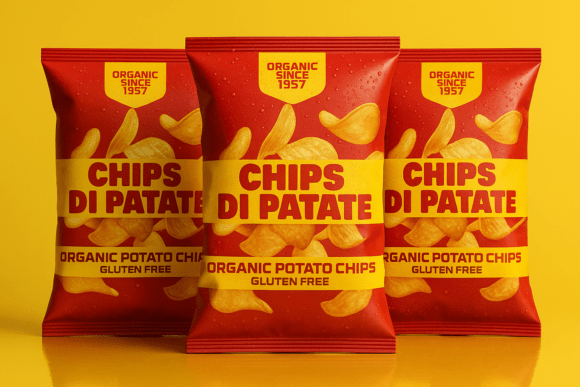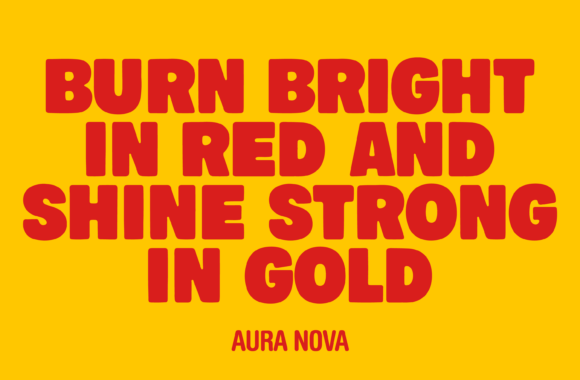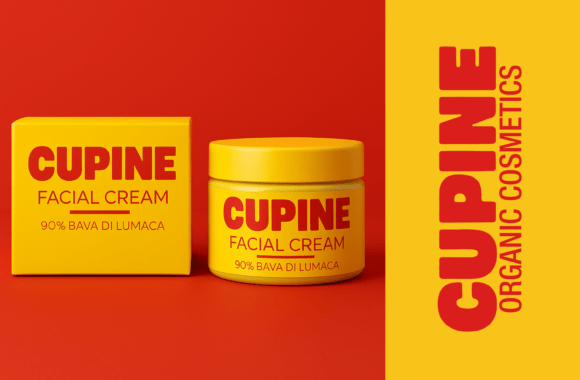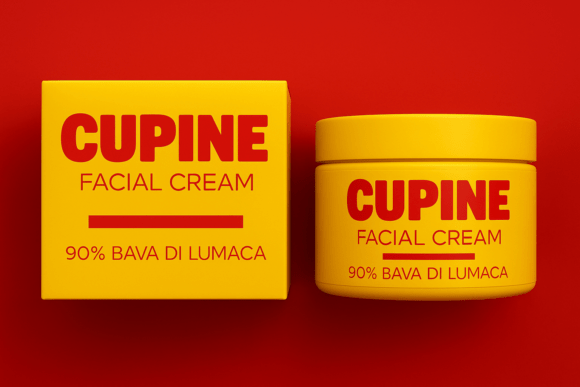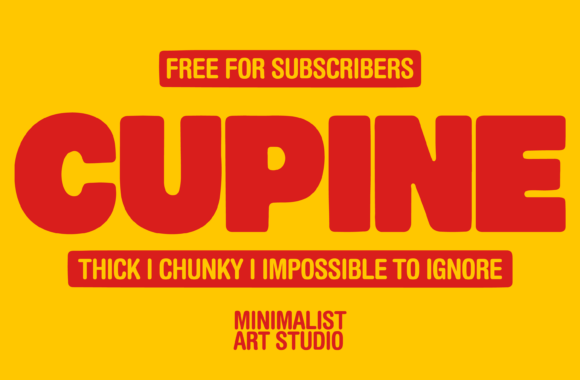
Cupine Font: The Ultimate Display Font for Bold Designs
Are you tired of using the same old fonts that blend in with the crowd? Do you want to create designs that grab attention and make a lasting impression? Look no further than Cupine Font, a thick, heavy, ultra-chunky sans-serif display font that’s built to make every design impossible to ignore.
The Power of Cupine Font
Cupine Font is designed to deliver instant visual power, making it perfect for designs that need to stand out from the crowd. Its rounded edges, bold curves, and friendly, high-impact personality make it ideal for creating standout logos, packaging, posters, ads, apparel, social graphics, and strong branding.
Perfect for Retro Vibes and Playful Designs
Cupine Font is a versatile font that can be used in a variety of design projects. Its bold and chunky design makes it perfect for retro-style designs, playful graphics, and sports labels. Whether you’re creating a logo, poster, or social media graphic, Cupine Font is sure to add a touch of personality and whimsy to your design.
Clean and Smooth Curves
One of the standout features of Cupine Font is its clean and smooth curves. This makes it perfect for both print and digital projects. The font’s smooth curves ensure that it looks great at any size, whether you’re using it for a large billboard or a small social media graphic.
Big Energy, Bold Branding
Cupine Font is all about BIG energy. If you need a font that shouts, pops, and takes up space, then Cupine Font is your new favorite. Its bold and chunky design makes it perfect for modern bold branding, sports labels, and any design project that needs to make a statement.
Use Cupine Font for:
- Standout logos and branding
- Ads and social media graphics
- Apparel and merchandise
- Retro-style designs and playful graphics
- Sports labels and modern bold branding
Why Choose Cupine Font?
There are many fonts on the market that claim to be bold and attention-grabbing, but Cupine Font stands out from the rest. Here are just a few reasons why:
- Unique and ultra-chunky design
- Clean and smooth curves
- Perfect for both print and digital projects
- Versatile and can be used in a variety of design projects
Get Ready to Make a Statement with Cupine Font
If you’re looking for a font that will help you create designs that stand out from the crowd, then Cupine Font is the perfect choice. Its bold and chunky design, clean and smooth curves, and friendly, high-impact personality make it the ultimate display font for designers and crafters.
In conclusion, Cupine Font is a powerful and versatile font that’s perfect for designers and crafters who want to create bold and attention-grabbing designs. Its unique and ultra-chunky design, clean and smooth curves, and friendly, high-impact personality make it the perfect choice for a variety of design projects. Whether you’re creating a logo, poster, or social media graphic, Cupine Font is sure to make a lasting impression.